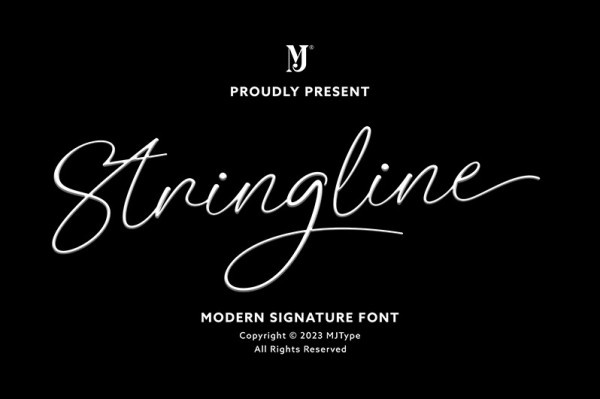
Stringline Font
Stringline Font, is a versatile script font that is simultaneously bold and feminine in style. This font is PUA encoded which means you can access the available glyphs and swashes with ease!